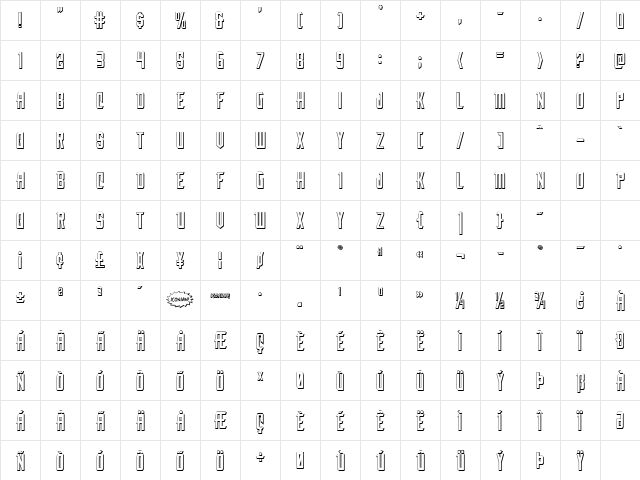
Nemesis Enforcer 3D brings high-energy athletic personality to the page - its confident, muscular forms are built for impact.
Pro Tip: Use Nemesis Enforcer 3D in all-caps headlines where its athletic energy can fully express itself. Pair with a solid, simple sans for supporting text.